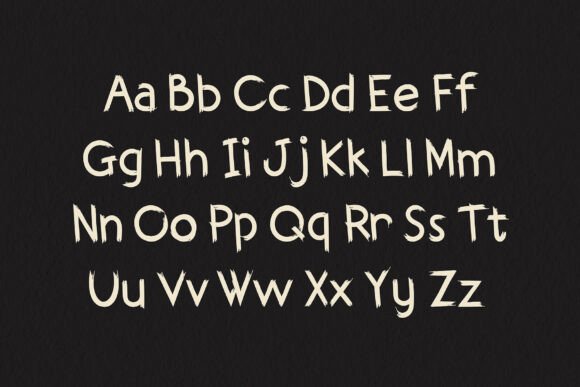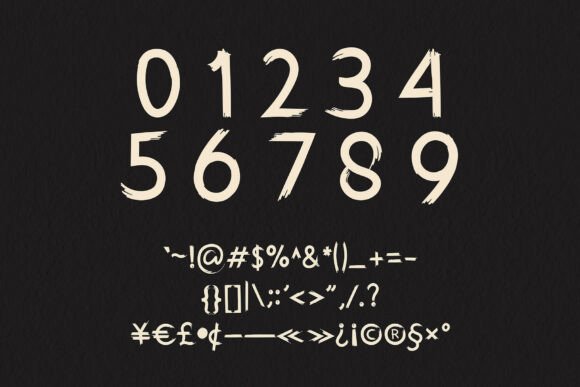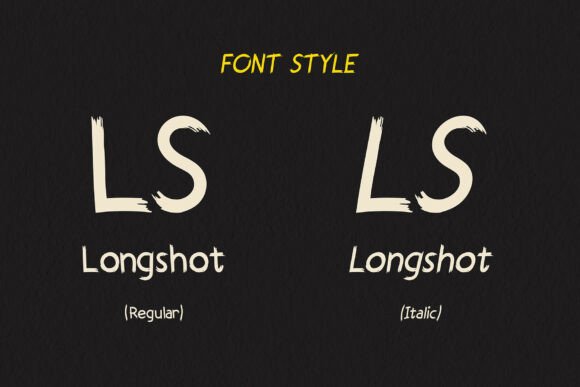
Introduction to Long Shot Font
Unleash the raw energy of hand-painted typography with the Longshot font.
This dynamic typeface captures the authentic, gritty texture of a dry brush on paper, offering a β€œNatural Handwriting” feel that is both edgy and approachable Whether you are looking for a classic Longshot typeface look or something with more movement, this set includes both Regular and Italic styles to suit your compositional needs.